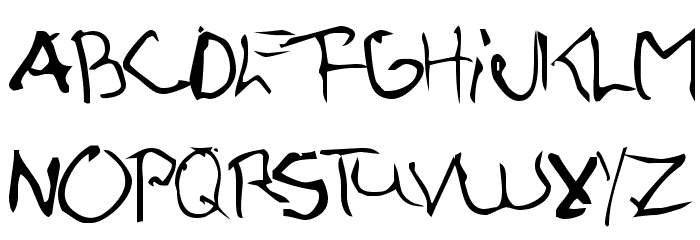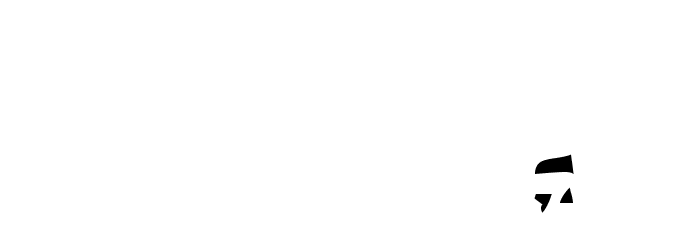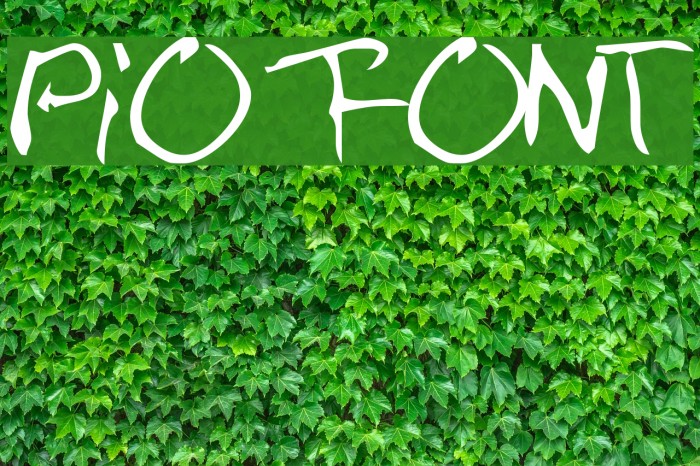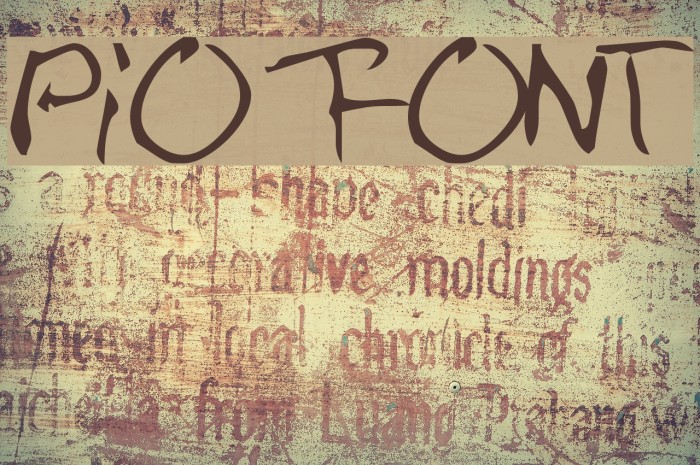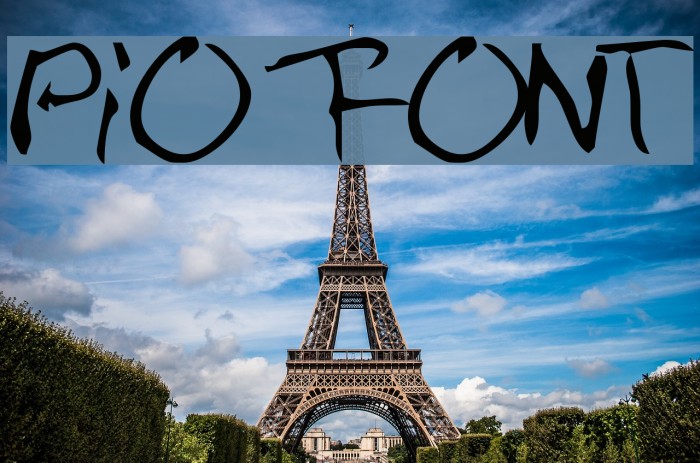
Pio Font
This font exhibits a bold and dynamic style with a strong calligraphic influence. The characters are highly stylized, featuring sharp angles and dramatic strokes that give it a sense of movement and energy. The uppercase letters are particularly striking, with exaggerated curves and unique forms that make each letter stand out. The lowercase letters maintain the same energetic style, ensuring consistency across the typeface. This font's distinct appearance makes it suitable for creative and artistic projects where a bold statement is desired.
A bold, calligraphic font with sharp angles and dynamic strokes.
- Proposed Projects: Ideal for artistic projects, posters, album covers, and branding that requires a bold and creative touch.